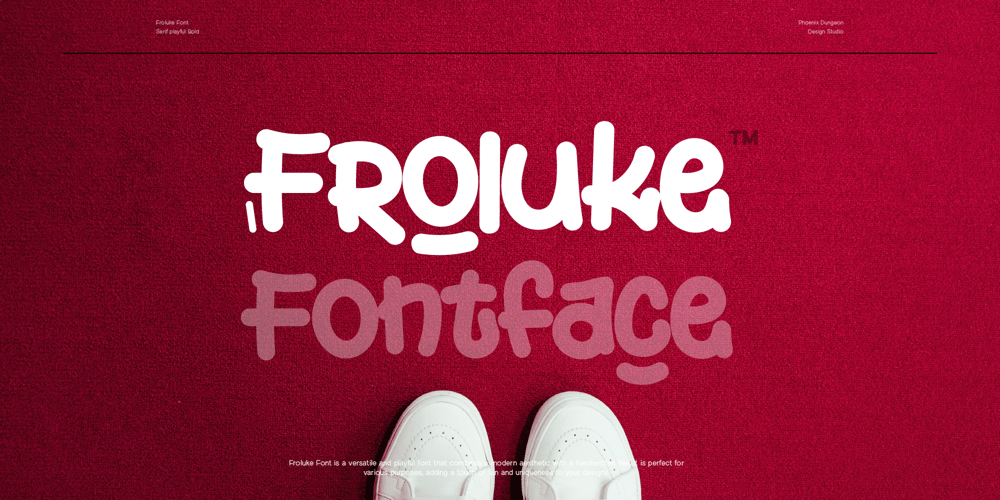
Froluke Font Family was designed by Alif Naufal Muzakki and published by Phoenix Group. Froluke contains 1 styles and family package options. Froluke Font is a versatile and playful font that combines a modern aesthetic with a handwritten feel. It is perfect for various purposes, adding a touch of fun and uniqueness to your designs.